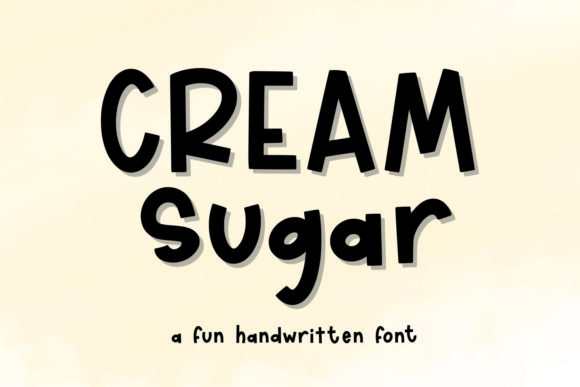
Cream Sugar: A Versatile and Stylish Display Font for Creative Projects
In the world of design, typography plays a crucial role in conveying messages, setting moods, and creating visual appeal. One such font that has gained popularity for its unique aesthetic is Cream Sugar. This display font is not only fun and neat but also highly versatile, making it an excellent choice for a wide range of creative projects. Whether you're working on a logo, a headline, or a branding campaign, Cream Sugar can elevate your designs with its distinctive style.
What is Cream Sugar?
Cream Sugar is a display font that combines elegance with a playful touch. Its name suggests a soft, creamy texture, which is reflected in its rounded and flowing letters. The font is designed to be eye-catching, making it ideal for headlines, logos, and other visual elements that need to stand out. Unlike more traditional fonts, Cream Sugar adds a sense of whimsy and creativity, perfect for projects that aim to engage and delight their audience.
The font's design is characterized by its smooth curves and gentle slopes, giving it a friendly and approachable feel. This makes it particularly suitable for brands that want to convey a sense of warmth and accessibility. Whether you're designing for a children's product, a food brand, or a lifestyle company, Cream Sugar can help you create a visual identity that resonates with your target audience.
Purpose and Significance of Cream Sugar
The primary purpose of Cream Sugar is to serve as a display font, meaning it is best used for short text elements rather than long paragraphs. Its visual appeal makes it ideal for headlines, titles, and logos, where it can draw attention and communicate a message effectively. In the context of corporate identity, brand identity, and apparel design, Cream Sugar can help create a cohesive and memorable visual language.
One of the key significances of Cream Sugar lies in its ability to add personality to a design. In a world where many brands use similar fonts, Cream Sugar offers a unique alternative that can help differentiate a brand from its competitors. By choosing a distinctive font like Cream Sugar, designers can create a stronger brand presence and make their work more memorable.
Moreover, Cream Sugar is not limited to just traditional media. It is also widely used in digital platforms such as websites, YouTube channels, Instagram pages, and social media graphics. Its versatility allows it to adapt to different formats and screen sizes, ensuring that it remains legible and visually appealing across various mediums.
Practical Relevance in Modern Design
In today's fast-paced digital landscape, the importance of good typography cannot be overstated. With so much content being consumed online, the right font can make a significant difference in how a message is received. Cream Sugar, with its stylish and engaging appearance, is well-suited for modern design projects that require both functionality and aesthetics.
For instance, in the apparel industry, Cream Sugar can be used to create catchy slogans or brand names that are easy to remember. In posters, music, movies, games, magazines, books, comics, and cartoons, the font can add a touch of creativity and flair, enhancing the overall visual experience. It is also a popular choice for YouTube and Instagram thumbnails, where a bold and readable font can attract more clicks and engagement.
Another area where Cream Sugar shines is in website design. While it may not be suitable for body text, it can be used for headings, buttons, and other interactive elements. When paired with a clean and modern sans-serif font for the main content, Cream Sugar can add visual interest without compromising readability.
How to Use Cream Sugar Effectively
To get the most out of Cream Sugar, it's important to understand how to use it effectively in different contexts. Here are some tips to help you make the best use of this font:
- Use it for headlines and titles: Cream Sugar is best suited for short text elements where it can make an impact. Avoid using it for long paragraphs, as it may become difficult to read.
- Pair it with complementary fonts: To maintain balance and readability, pair Cream Sugar with a simpler font for body text. This creates a contrast that enhances the overall design.
- Experiment with colors and backgrounds: The font's soft and creamy appearance can be accentuated with warm color schemes. However, it's important to ensure that there is enough contrast between the text and the background for optimal readability.
- Consider the context: Depending on the project, you may want to adjust the size, spacing, or weight of the font to suit the specific needs of the design.
By following these guidelines, you can ensure that Cream Sugar enhances your design rather than detracting from it. Its flexibility allows it to be adapted to a wide range of styles and themes, making it a valuable addition to any designer's toolkit.
Whether you're a beginner exploring the world of typography or an experienced designer looking for new tools, Cream Sugar is a valuable asset that can help bring your creative vision to life. With its ability to add personality and style to any project, it's no wonder that this font has become a favorite among designers and artists alike.